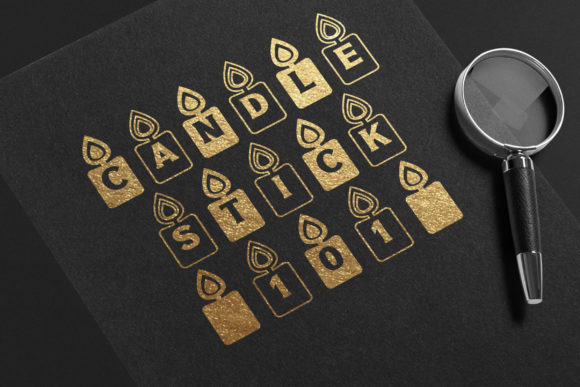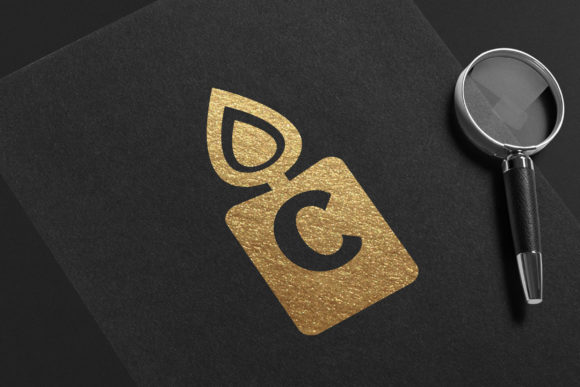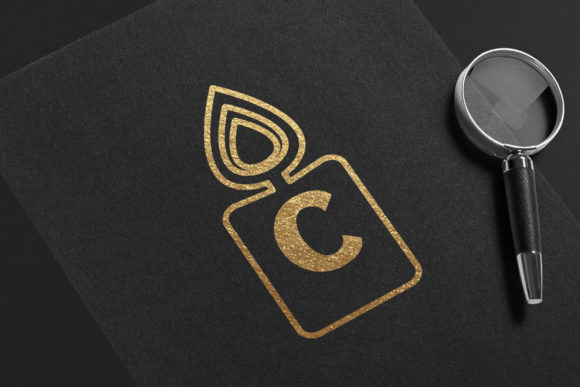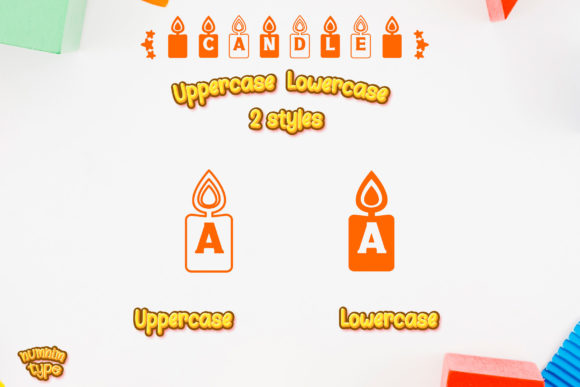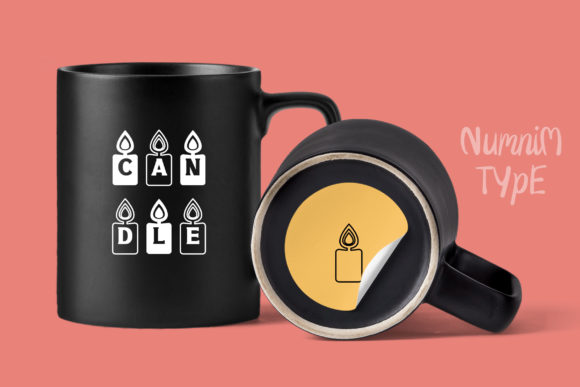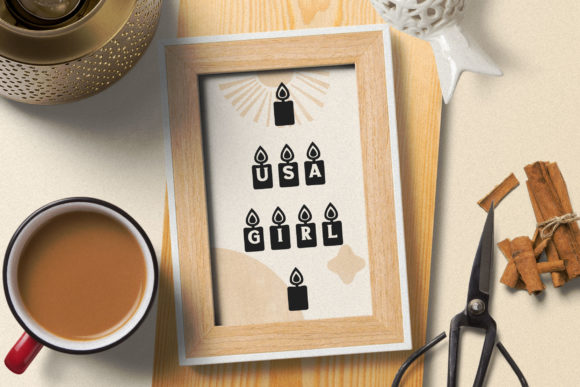
The Magic of Candle Font: A Designer’s New Best Friend
I still remember the time I was working on a vintage-themed craft project, and I just couldn’t find the right font to give it that perfect, nostalgic feel. The client was specific about wanting something that looked like it was plucked straight from a bygone era. That’s when I stumbled upon the Candle font, and let me tell you, it was love at first sight! ✨
An Honest Review of Candle Font
What I Love About Candle Font
- ✨ Unique and decorative design that adds a touch of elegance to any project
- ✅ Perfect for crafting a vintage look that’s both personalized and distinctive
- 💫 Works beautifully for titles, headings, and short paragraphs
- 🎨 Highly versatile and can be used for a wide range of creative projects
While Candle font is an amazing addition to any design project, there are a few things to keep in mind: 🤔
- ⚠️ May not be the best choice for long blocks of text, as it can be a bit ornate
- ⚠️ Some characters may not work well at very small font sizes
One of the best things about Candle font is its OpenType features and glyphs. These allow you to customize your text and add more personality to your design. Some common features to explore include:
- Ligatures: These combine certain letter combinations into a single glyph, creating a more fluid look.
- Stylistic alternates: These offer alternative versions of certain characters, allowing you to mix and match different styles.
- Glyphs: These are special characters that can add more interest to your text, such as ornaments or swashes.
The Story Behind Candle Font
Candle font was designed with the intention of capturing the warmth and coziness of a crackling candle flame. The designer wanted to create a font that would evoke feelings of nostalgia and comfort, while still being unique and eye-catching. The result is a font that’s both decorative and inviting.
Q: What type of projects is Candle font best suited for?
A: Candle font is perfect for crafting projects, vintage-themed designs, and any creative endeavor that requires a personalized, nostalgic look.
Q: Is Candle font available in different weights or styles?
A: Currently, Candle font is available in a single weight. However, the designer may release additional weights or styles in the future.